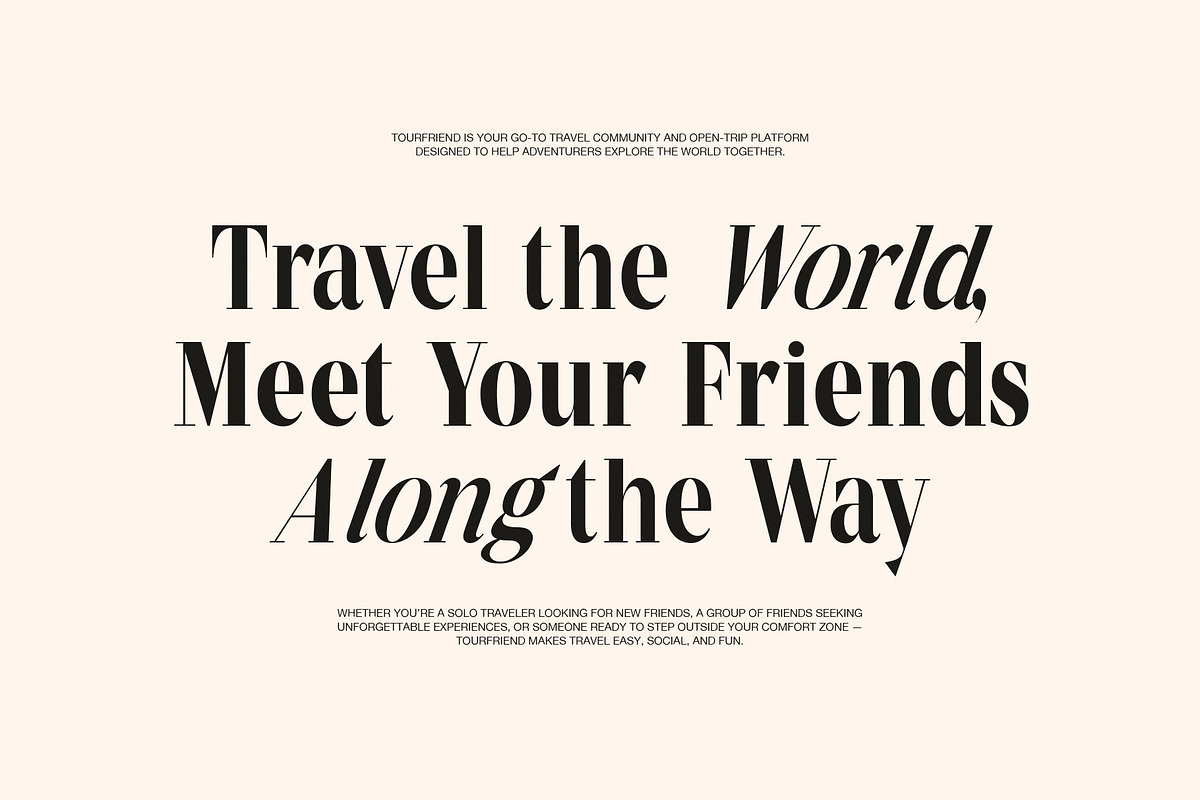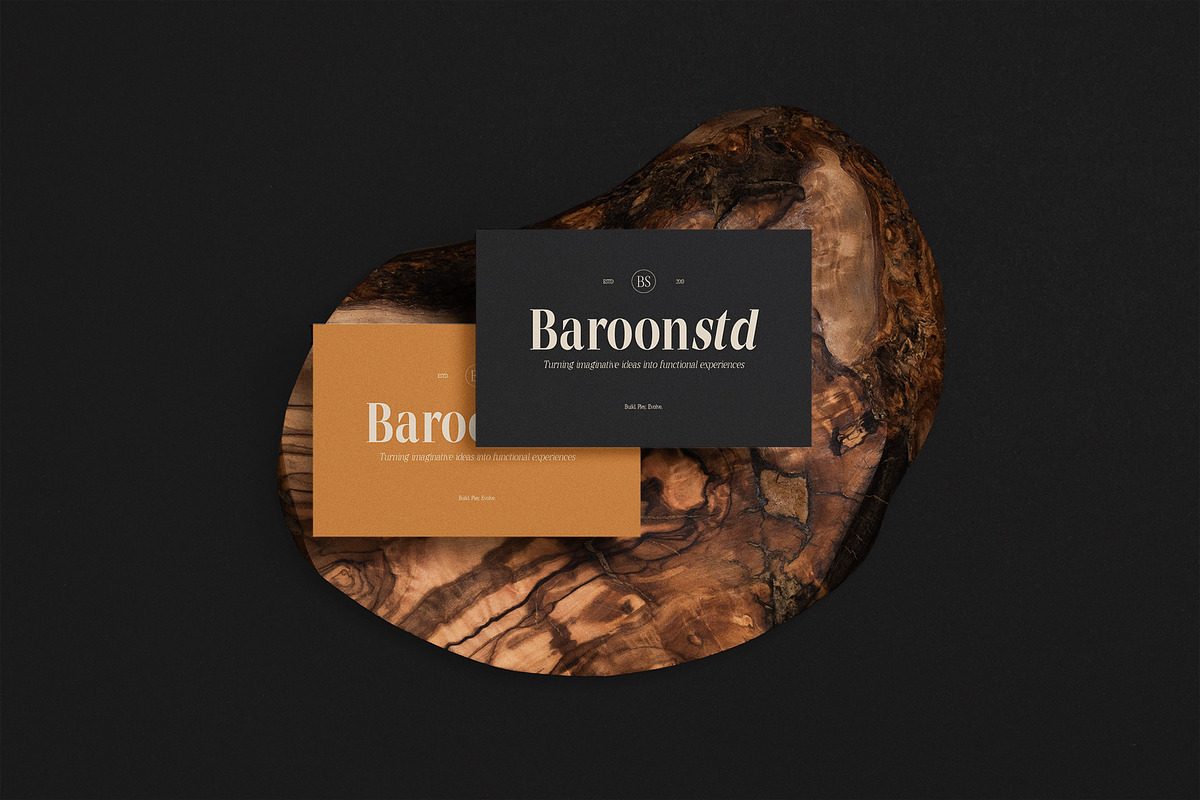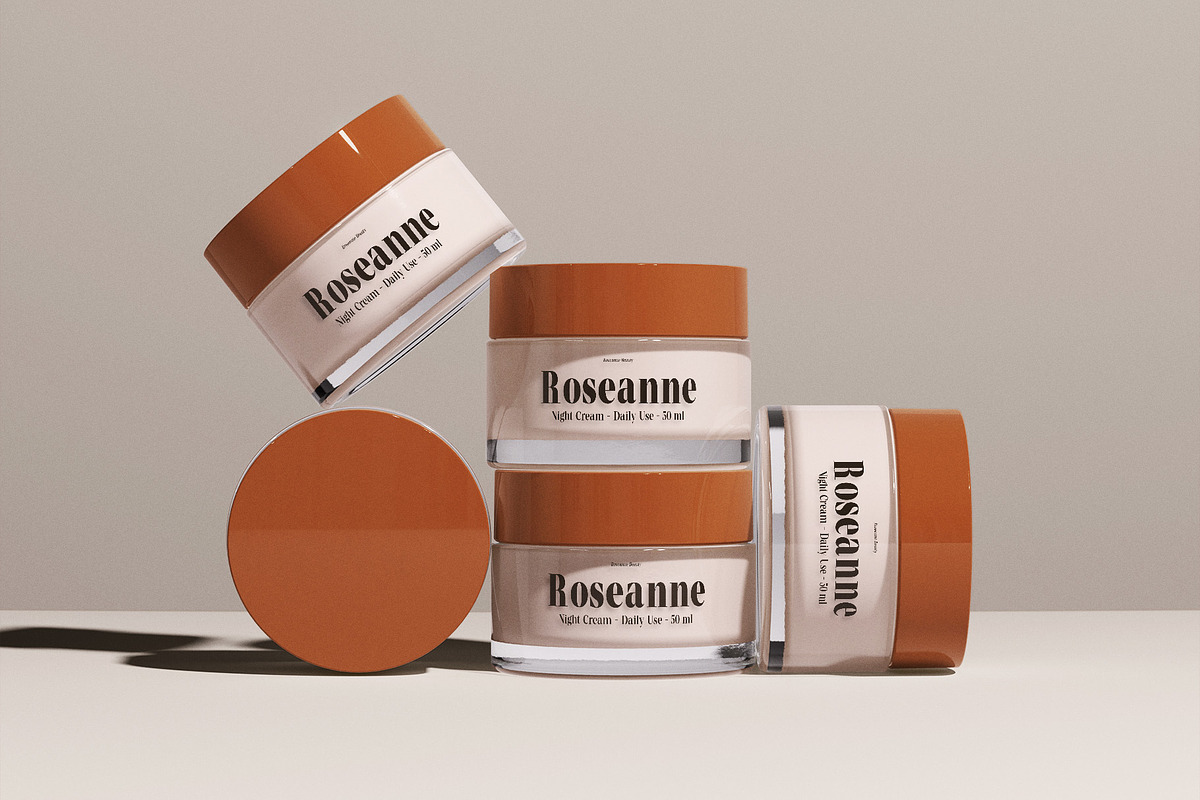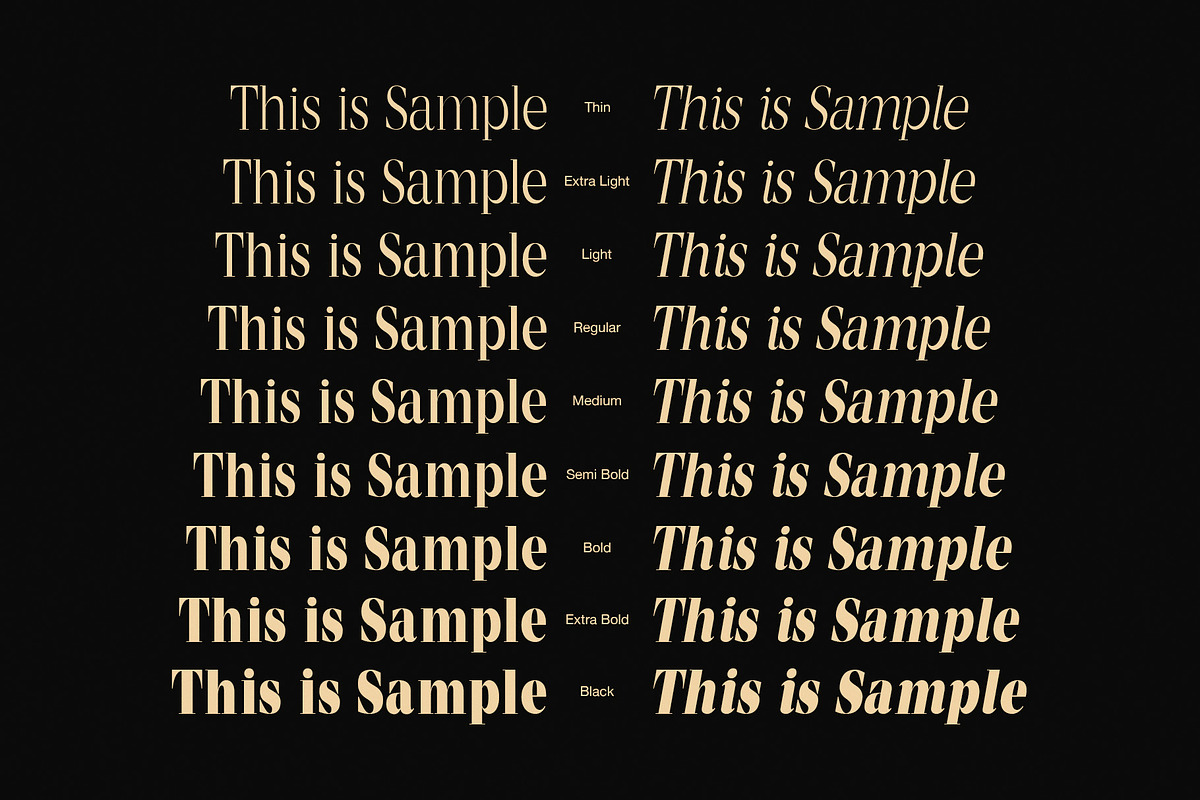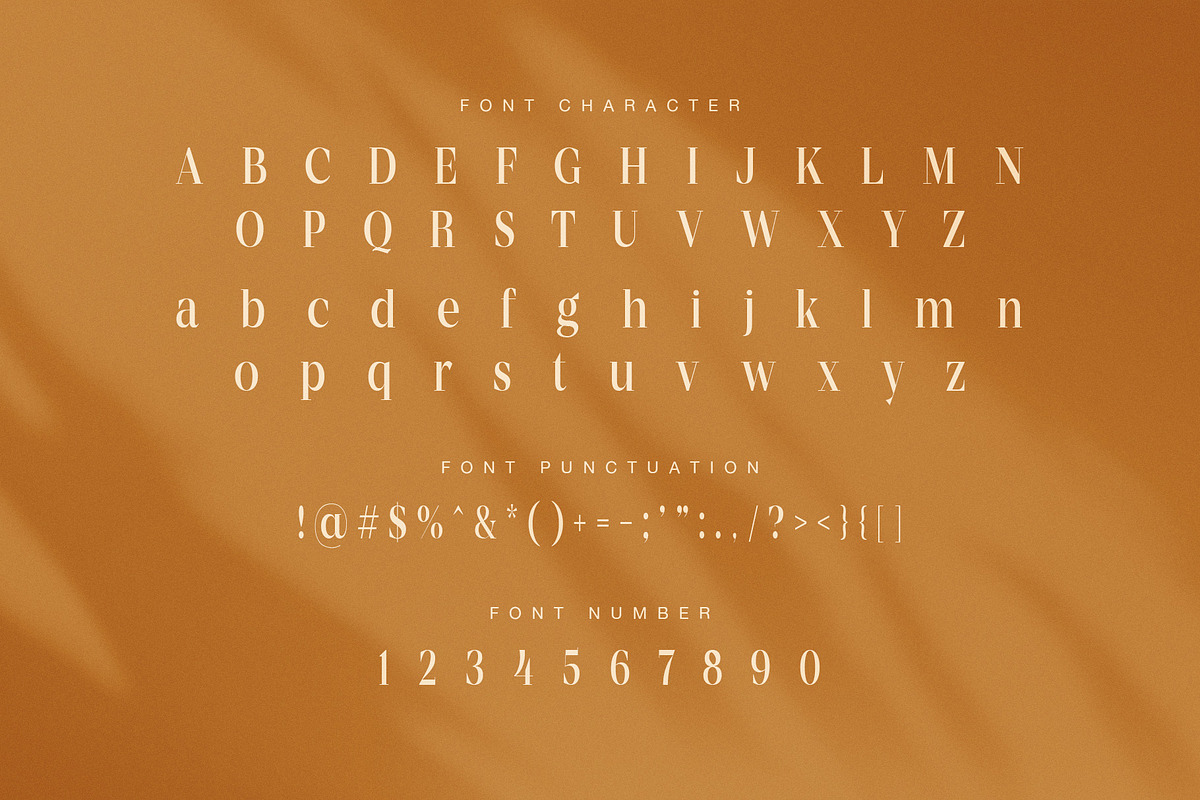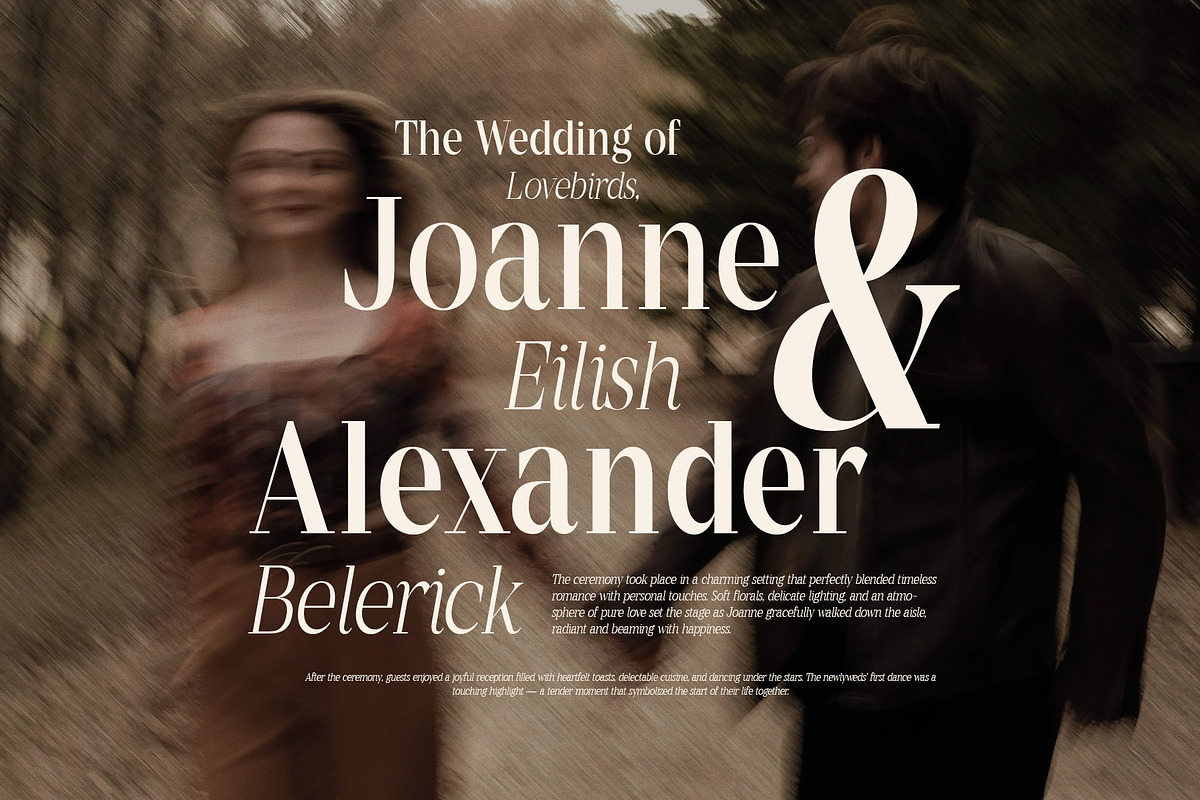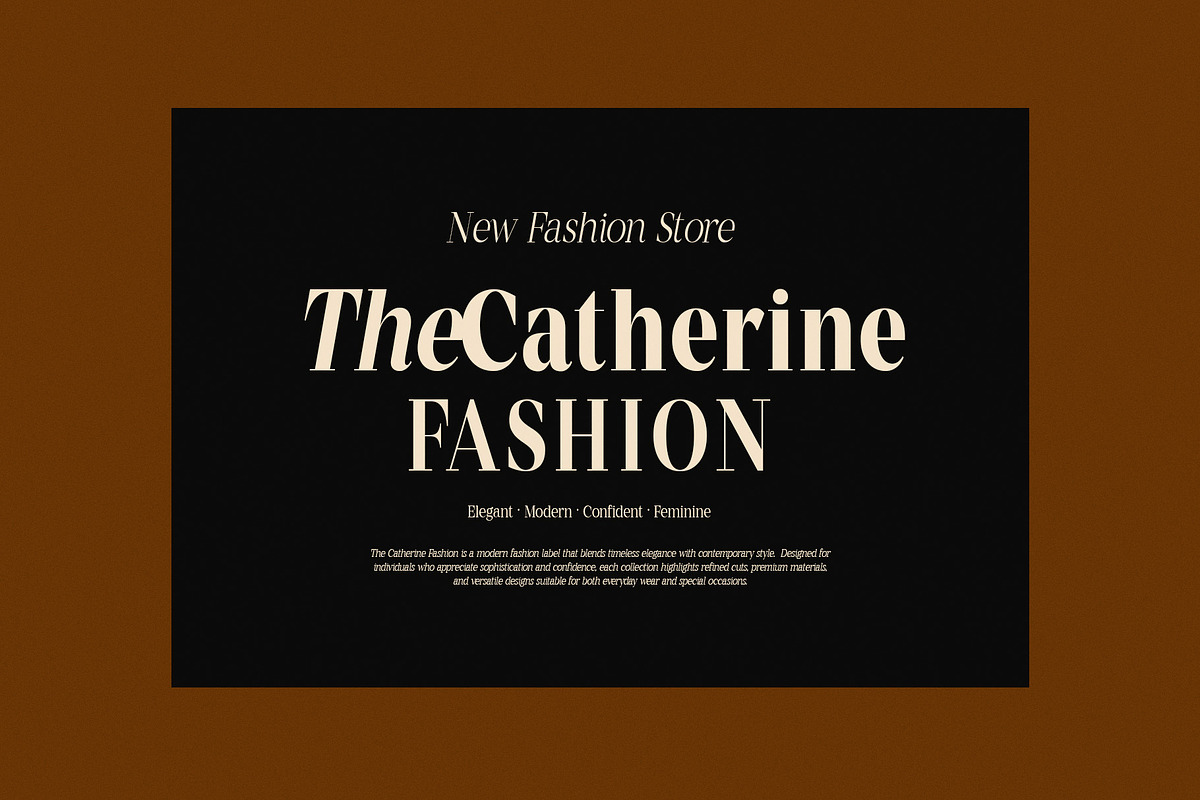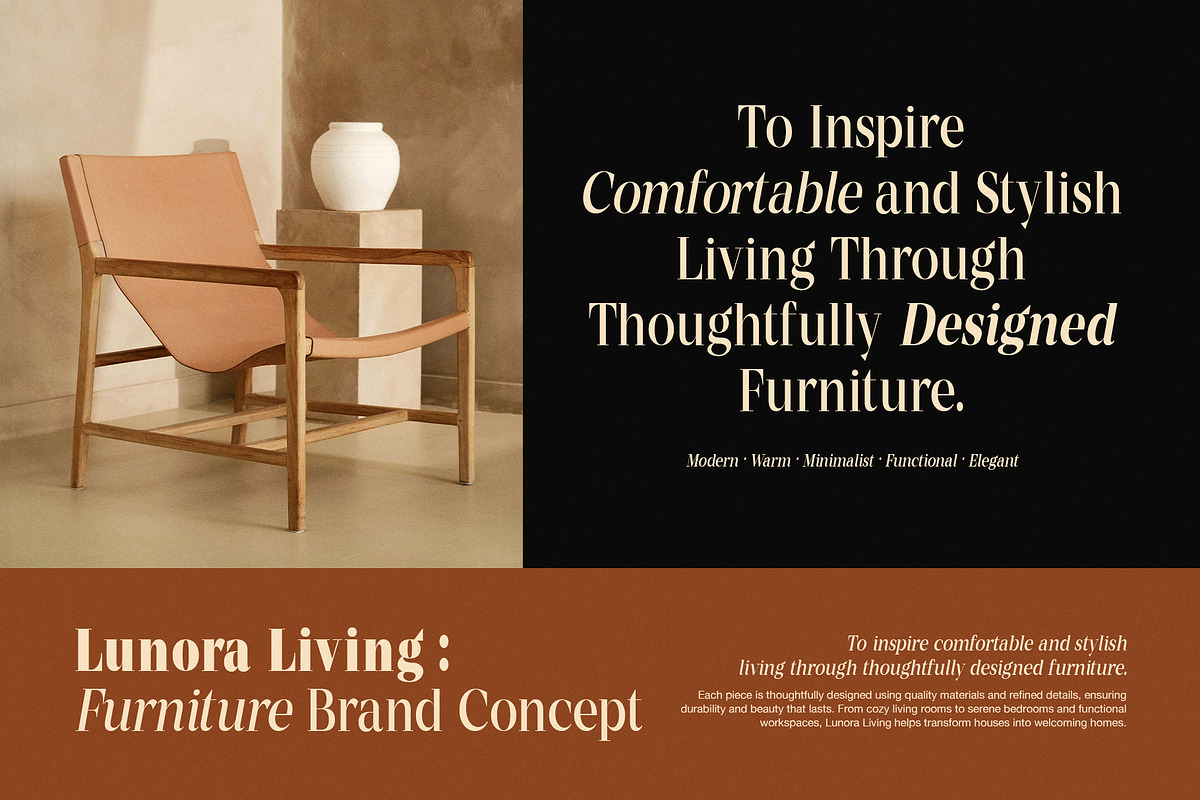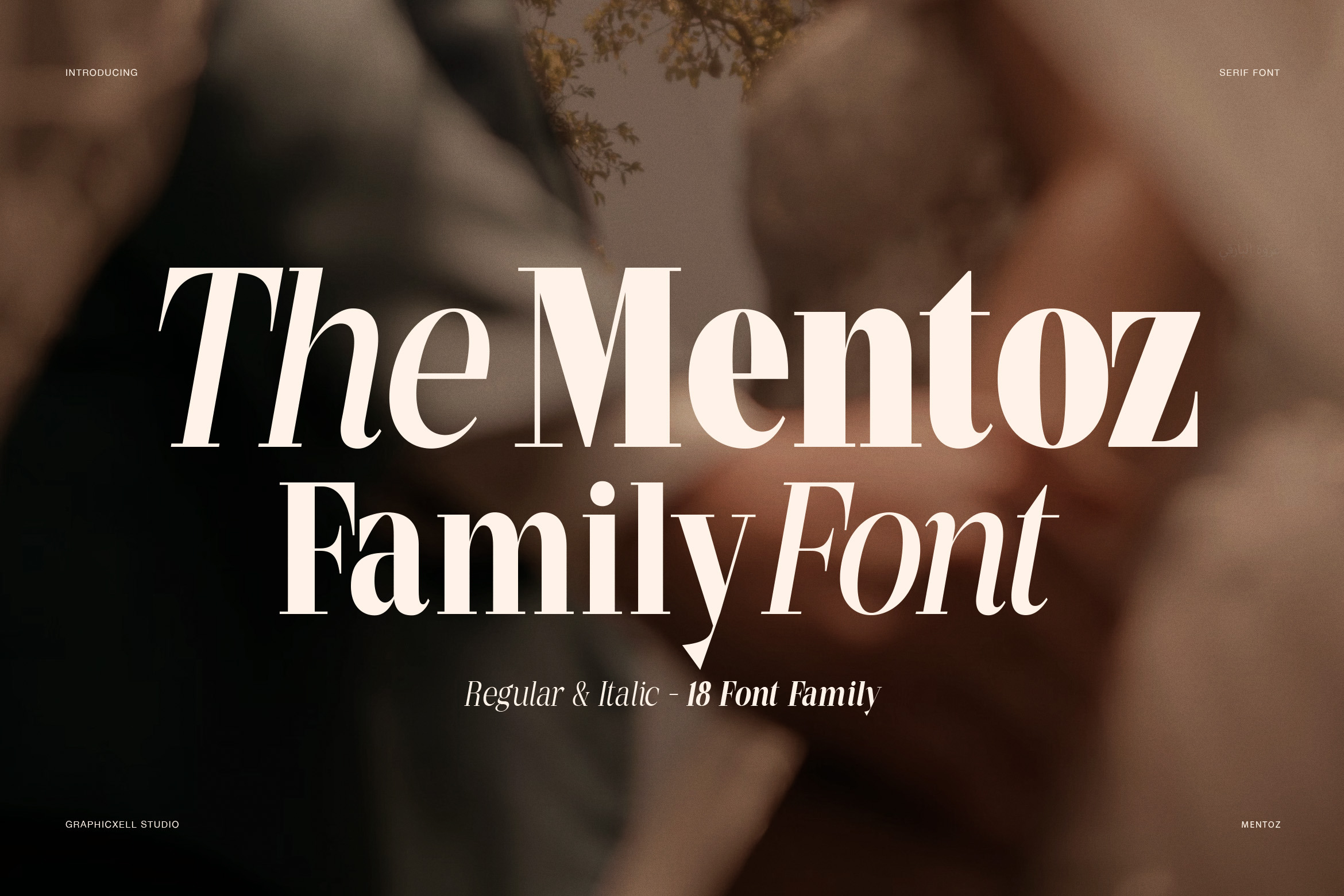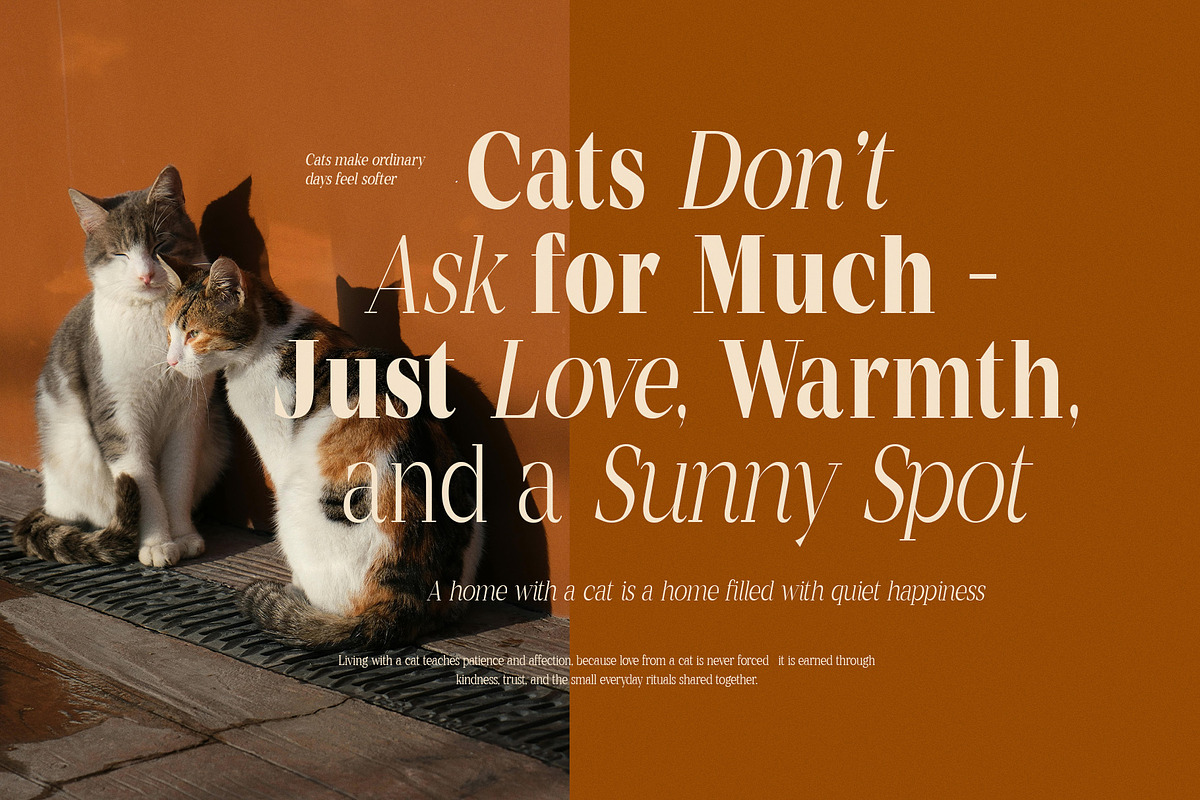
Mentoz Elegant Serif Font Family
Mentoz is an elegant serif font family created for designers who need both beauty and flexibility in one complete system. With 18 carefully crafted styles, from light to bold, plus matching regular and italic versions, this family delivers a wide range of visual expression. As a result, it works perfectly for projects that require consistency across headlines, subheads, and body text.
At first glance, Mentoz feels refined and modern. The tall letterforms, smooth curves, and high-contrast strokes create a luxurious tone that immediately elevates any layout. However, the shapes remain clean and readable, so the font never feels heavy or decorative. Moreover, the italics introduce a soft rhythm that adds elegance without reducing clarity.
Because of its versatility, Mentoz adapts easily to many design fields. For example, it looks stunning in fashion branding, editorial layouts, luxury packaging, wedding stationery, and lifestyle websites. In addition, the lighter weights bring a delicate touch, while the bold styles provide strong visual impact. Therefore, designers can build complete brand identities using a single font family.
Another strength of Mentoz is its professional character set. It includes uppercase and lowercase letters, numbers, punctuation, and balanced spacing for smooth typography. Consequently, the font performs beautifully in both print and digital environments.
Complete family with 18 styles
Weights from light to bold
Matching regular and italic versions
Elegant high-contrast serif design
Clean and readable letterforms
Full character set with numerals and punctuation
Ideal for branding, editorials, and packaging
Suitable for print and screen use
Beyond technical quality, Mentoz communicates confidence and warmth. It feels premium yet approachable, which makes it ideal for modern brands that want sophistication without stiffness.
Overall, Mentoz is a versatile serif font family that combines timeless elegance with contemporary clarity. If you want typography that looks graceful, powerful, and cohesive across every application, this font is an excellent choice.